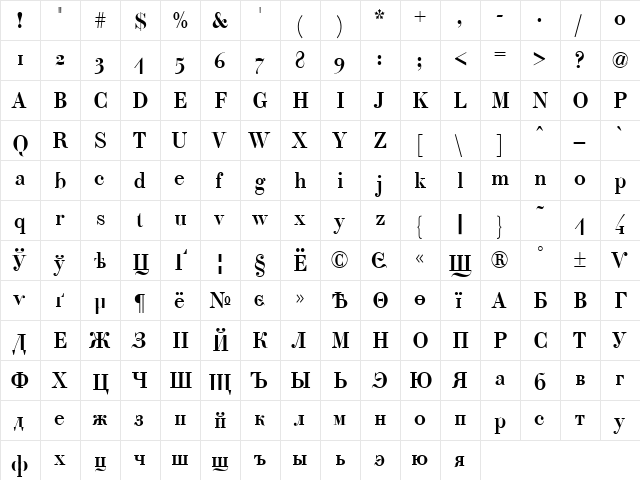
ParagonNordCTT Regular
Design Context for ParagonNordCTT Typeface
ParagonNordCTT offers clean, dependable letterforms without strong stylistic allegiance, making it a practical choice for designers who need flexibility.